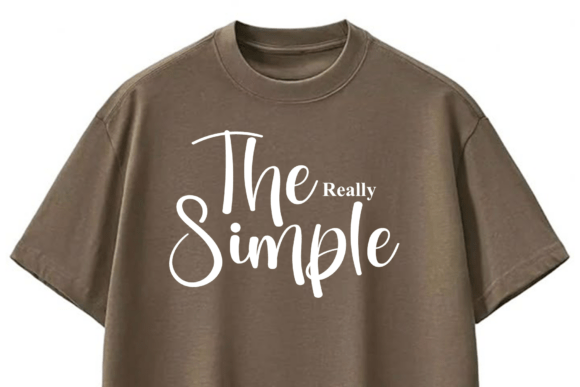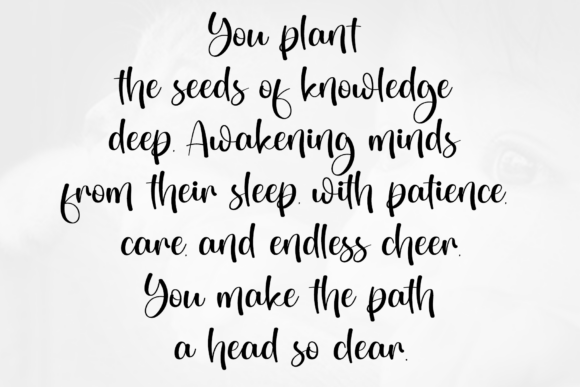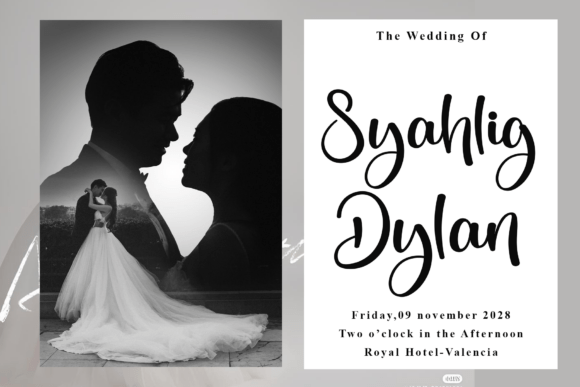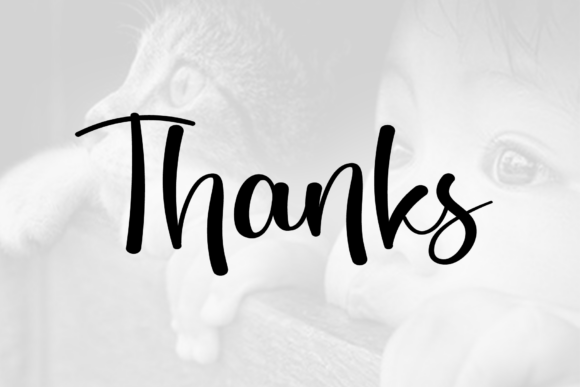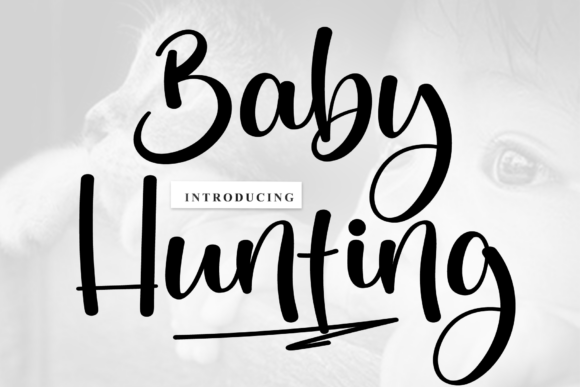
Baby Hunting Font: Elevate Your Brand with Sophisticated Script Style
In the world of typography, a font can make or break the visual identity of a brand. For designers and crafters seeking to add a touch of elegance and sophistication to their projects, Baby Hunting Font is an exceptional choice. This beautiful script font combines the fluidity of calligraphy with a warm, organic aesthetic, making it perfect for artisanal food branding, boutique product packaging, upscale lifestyle marketing, and creative editorial titles.
The Unique Charm of Baby Hunting Font
Baby Hunting Font stands out with its distinctive, sweeping ascenders that loop and curve in a rhythmic dance across the page. This characteristic feature gives the font its artisanal, hand-crafted feel, evoking the sense of customized artistry that is so prized in today’s market. The font’s calligraphic style is balanced by a warm, approachable quality, making it versatile enough to be used in a wide range of applications.
Key Features of Baby Hunting Font
- Sweeping Ascenders: The looping ascenders are the defining feature of Baby Hunting Font, giving it a dynamic, fluid feel.
- Calligraphic Style: The font’s calligraphic roots lend it an air of sophistication and elegance.
- Warm Aesthetic: The organic, hand-crafted feel of the font makes it perfect for brands seeking to convey a sense of artisanal quality.
- Versatility: Suitable for a wide range of applications, from packaging and branding to editorial and marketing materials.
Applications for Baby Hunting Font
Baby Hunting Font is a premier choice for several key areas:
Artisanal Food Branding
For food brands that pride themselves on quality, freshness, and a touch of homemade charm, Baby Hunting Font offers the perfect blend of sophistication and approachability. Its elegant, looping script is ideal for labeling products, creating brand identities, and packaging.
Boutique Product Packaging
Boutique products require a font that conveys luxury, uniqueness, and a high-end feel. Baby Hunting Font, with its sweeping ascenders and organic aesthetic, adds a touch of class and distinction to any product packaging, making it stand out on crowded shelves.
Upscale Lifestyle Marketing
In marketing materials aimed at an upscale audience, the font used can significantly impact the perceived value and sophistication of a brand. Baby Hunting Font brings a level of refinement and elegance that resonates with discerning consumers, making it an excellent choice for campaigns targeting high-end lifestyles.
Creative Editorial Titles
For editorial projects, such as magazines, blogs, and books, Baby Hunting Font can add a touch of personality and flair to titles and headings. Its unique character makes it an excellent choice for creative and artistic publications looking to differentiate themselves.
Tips for Using Baby Hunting Font
To get the most out of Baby Hunting Font, consider the following tips:
- Pair with Simple Fonts: For body text, pair Baby Hunting Font with a simple, clean font to create visual contrast and ensure readability.
- Adjust Letter Spacing: Adjusting the letter spacing can enhance the flow and rhythm of the text, especially for headings and titles.
- Use in Moderation: While Baby Hunting Font is beautiful, it’s best used in moderation. Use it for headings, titles, and key messages to create impact without overwhelming the reader.
Baby Hunting Font is a sophisticated and versatile script font that brings a unique blend of calligraphic elegance and organic warmth to any project. Its distinctive sweeping ascenders and rhythmic flow make it a standout choice for designers and crafters looking to add a touch of artisanal charm and sophistication to their work. Whether you’re working on artisanal food branding, boutique product packaging, upscale lifestyle marketing, or creative editorial titles, Baby Hunting Font is an excellent choice for elevating your brand and making a lasting impression.